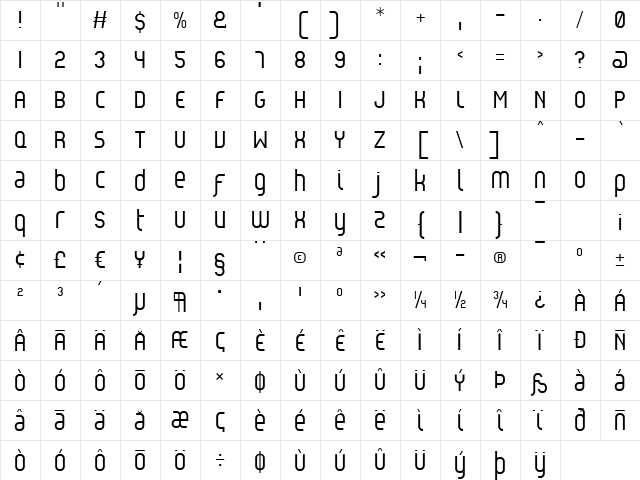
Complete Reflex Regular glyph index. Displaying only characters natively supported by Reflex Regular font.
Reflex is a composed and adaptable typeface that performs quietly and consistently across a wide range of design contexts.
Who designed the Reflex Regular font?
This font was published by Alejandro Paul for Typeworx. Check the technical specs section for copyright and designer details.